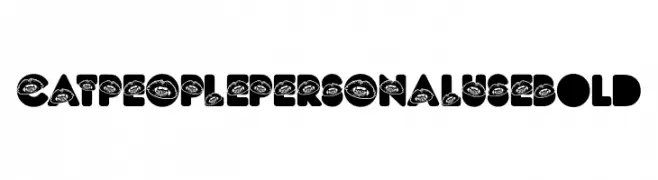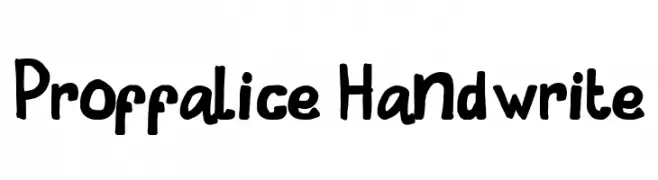
( Fonts by Billy Argel Fonts ® )
A bold, decorative font with lip graphics integrated into each letter.
A bold, decorative font with a unique dotted pattern inside each character.
( Fonts by Proffalice Lesttari )
A playful, handwritten-style font with bold, rounded characters.